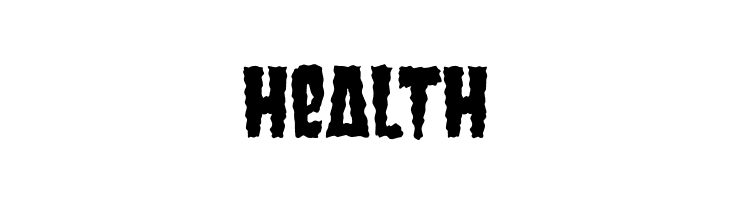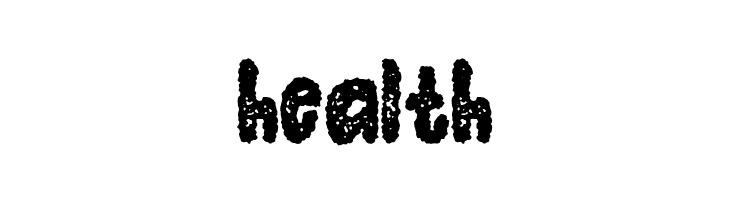
A bold, jagged font with a distressed, horror-themed appearance.
A bold, dripping font perfect for spooky and horror-themed designs.
A hand-drawn, eerie font with a rugged, uneven texture.
A spooky, dripping font ideal for horror-themed designs.
A playful, rough-textured font with a spooky, hand-drawn style.
A jagged, eerie font perfect for horror themes with scratch-like strokes.
A bold, eerie font with jagged, dripping edges perfect for horror themes.
A jagged, eerie font ideal for horror themes and Halloween designs.
A bold, playful font with a spooky, hand-drawn style.
A bold, distressed font with a hand-painted, spooky aesthetic.